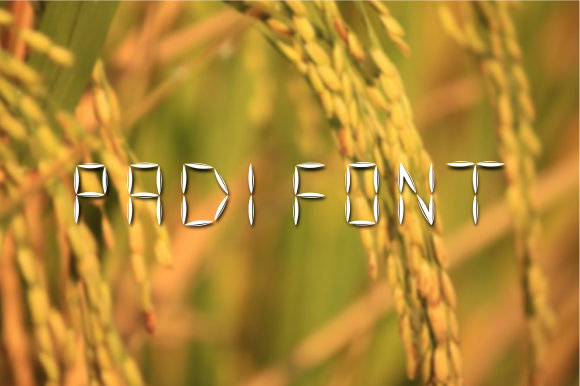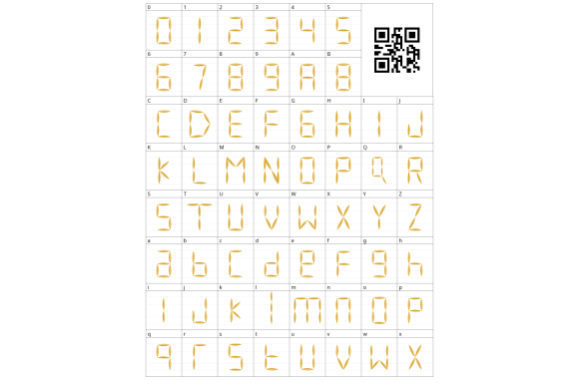
Introduction to Padi Font
Padi is a cool and interesting looking decorative font, that will fit perfectly on each of your designs.
Have fun with this beautiful font and explore its endless variations .
Key Features of Padi Font
Why Choose Padi Font?
Padi Font offers exceptional quality and versatility, making it a valuable addition to your design toolkit. Whether you’re creating for personal projects or commercial use, Padi Font delivers professional results.